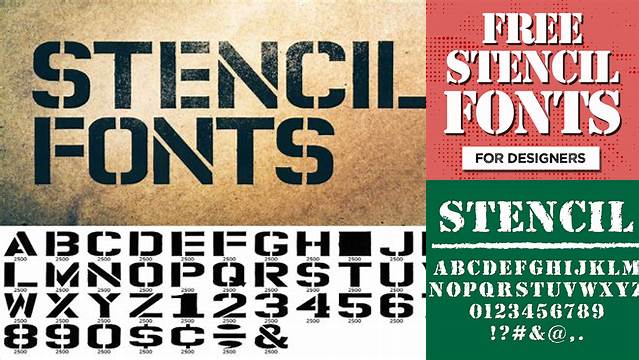
Hey guys! Looking to add a cool, industrial, or military vibe to your designs? Stencil fonts are the way to go! They're super versatile and can be used for everything from logos and posters to website headers and social media graphics. The best part? You can find tons of amazing free stencil fonts to download and use in your projects. Let's dive into the world of stencil fonts and explore where you can snag some awesome freebies.
Stencil Fonts: An Overview
Stencil fonts, characterized by their disconnected letterforms, evoke a sense of ruggedness and practicality. This unique design stems from the traditional method of creating lettering using stencils, where bridges are necessary to hold the inner parts of letters in place. The result is a distinctive, fragmented aesthetic that lends itself well to various design applications. From military-themed designs to industrial branding, stencil fonts offer a versatile way to convey a sense of strength, durability, and history. Free stencil font downloads provide designers with accessible tools to incorporate this aesthetic into their work without incurring licensing fees, making them a valuable resource for both personal and commercial projects.
Always read the font license carefully before using a font in your project. If you're unsure about the terms of the license, it's best to contact the font designer or foundry directly to clarify. Using a font without the proper license can lead to legal trouble, so it's always better to be safe than sorry.
Stencil Fonts for Logo Design
Stencil fonts can be a powerful tool for creating unique and memorable logos. The distinctive, fragmented letterforms of stencil fonts can help your logo stand out from the crowd and convey a sense of strength, durability, or industrial style. When using stencil fonts for logo design, it's essential to choose a font that aligns with your brand's identity and target audience. Consider the overall feel you want to create and select a font that reflects that aesthetic.
For example, a bold, robust stencil font might be ideal for a construction company or a military-themed brand. On the other hand, a more refined and stylized stencil font might be suitable for a fashion brand or a creative agency. Experiment with different fonts and variations to find the perfect fit for your logo. Also, be sure to consider the legibility of the font, especially at small sizes. A stencil font that looks great in a large headline might not be readable in a small logo.
Using Stencil Fonts in Web Design
Stencil fonts can add a unique touch to your web design projects. They can be used for headings, subheadings, and even body text, depending on the overall style of your website. When using stencil fonts on the web, it's essential to consider readability and accessibility. Stencil fonts can sometimes be challenging to read on screens, especially at smaller sizes. Therefore, it's crucial to choose a font that is legible and easy on the eyes.
Also, be sure to consider the loading time of the font. Some stencil fonts can be quite large, which can slow down your website's loading speed. To avoid this, optimize the font files and use a content delivery network (CDN) to serve the fonts. You can also use font subsets to include only the characters that you need, which can significantly reduce the file size.
Stencil Fonts for Print Design
Stencil fonts are a great choice for print design projects, such as posters, flyers, brochures, and packaging. They can add a touch of industrial style or military flair to your designs. When using stencil fonts in print, it's essential to choose a font that is legible and prints well at the desired size. Some stencil fonts may have thin lines or small details that can get lost in print, so it's crucial to test the font before committing to a large print run.
Also, be sure to consider the color and paper stock you're using. Stencil fonts can look particularly striking when printed in bold colors on textured paper. Experiment with different combinations to find the perfect look for your project. Remember to check the font license to ensure that you're allowed to use the font for commercial print projects.
Free Stencil Fonts for Commercial Use
Finding free stencil fonts for commercial use can be a bit challenging, but it's definitely possible. Many font websites offer fonts that are free for both personal and commercial use. However, it's essential to always check the license before using a font in a commercial project. Look for licenses that explicitly state that the font is free for commercial use or that allow you to use the font for any purpose.
Some foundries also offer free sample fonts or promotional releases that can be used commercially. These fonts are often of high quality and can be a great way to add a professional touch to your designs. Keep an eye out for these freebies and take advantage of them when you find them. Remember to always keep a record of the font licenses for your commercial projects in case you ever need to prove that you have the right to use the fonts.
Best Stencil Fonts for Military Designs
For military-themed designs, stencil fonts are an absolute must-have. They perfectly capture the rugged, utilitarian aesthetic of military equipment and signage. When choosing a stencil font for a military design, look for fonts that are bold, strong, and easy to read. Fonts with sharp angles and clean lines tend to work well for this purpose.
Consider the historical context of your design when selecting a font. Different eras of military history have different design styles, so choose a font that is appropriate for the time period you're representing. Also, be sure to consider the color palette. Military designs often use muted colors like olive drab, khaki, and black, so choose a font that complements these colors. Some popular stencil fonts for military designs include those inspired by military stencils and industrial lettering.
Industrial Stencil Fonts: A Closer Look
Industrial stencil fonts are perfect for designs that need to convey a sense of strength, durability, and functionality. These fonts are often used in logos, signage, and packaging for industrial products and services. When choosing an industrial stencil font, look for fonts that are bold, geometric, and easy to read. Fonts with a slightly distressed or weathered look can add to the industrial feel.
Consider the specific industry you're designing for when selecting a font. For example, a font that is suitable for a construction company might not be appropriate for a technology company. Also, be sure to consider the overall tone of your design. Do you want it to look tough and rugged, or more modern and sophisticated? Choose a font that reflects the desired tone. It’s key to check the font licenses to ensure it is free for commercial use.
Creating Your Own Stencil Font
If you're feeling adventurous, you can even try creating your own stencil font. This can be a fun and rewarding way to add a unique touch to your designs. There are several software programs available that make it easy to create custom fonts. Some popular options include FontLab Studio, Glyphs, and FontForge. These programs allow you to draw your own letterforms and create a complete font from scratch.
When designing your stencil font, be sure to consider the principles of typography and design. Pay attention to the spacing between letters, the thickness of the strokes, and the overall balance of the font. Also, be sure to test your font in different sizes and contexts to ensure that it is legible and aesthetically pleasing. Creating your own font can be a time-consuming process, but the results can be well worth the effort.
Editing Existing Stencil Fonts
Sometimes, you might find a stencil font that is almost perfect, but needs a few tweaks to fit your specific needs. Fortunately, many font editing programs allow you to modify existing fonts. This can be a great way to customize a font and make it your own. Some popular font editing programs include FontLab Studio, Glyphs, and FontForge.
When editing a stencil font, be careful not to damage the font's structure or legibility. Make small, incremental changes and test the font after each change to ensure that it still looks good. You can adjust the spacing between letters, change the thickness of the strokes, or even add new characters to the font. Just remember to respect the original font designer's work and to comply with the font's license.
Pairing Stencil Fonts with Other Typefaces
Stencil fonts can be a bit overwhelming on their own, so it's often a good idea to pair them with other typefaces. This can help to balance the overall design and make it more visually appealing. When pairing stencil fonts, look for typefaces that complement the stencil font's style and tone. For example, a bold stencil font might pair well with a clean, sans-serif typeface. Or, a more decorative stencil font might pair well with a classic serif typeface.
Experiment with different combinations to find what works best for your design. Consider the overall hierarchy of your design and use different typefaces to emphasize different elements. Also, be sure to pay attention to the spacing between the typefaces. The goal is to create a harmonious and visually balanced design.
The History of Stencil Fonts
The history of stencil fonts is closely tied to the history of printing and lettering. Stencils have been used for centuries to create lettering and designs. The earliest stencils were made from materials like paper, parchment, and metal. These stencils were used to apply paint, ink, or other materials to surfaces, creating lettering and designs. The use of stencils became particularly widespread in the military, where they were used to mark equipment, vehicles, and signage.
Over time, stencil fonts evolved and became more refined. The development of new printing technologies, such as lithography and screen printing, allowed for the creation of more intricate and detailed stencil fonts. Today, stencil fonts are widely used in graphic design, web design, and other creative fields. They continue to be a popular choice for designs that need to convey a sense of strength, durability, or industrial style.
Stencil Fonts in Graphic Design Trends
Stencil fonts have been a recurring trend in graphic design for many years. They often appear in designs that are inspired by military, industrial, or urban aesthetics. In recent years, stencil fonts have been used in a variety of design projects, including logos, posters, websites, and packaging. One of the reasons for the popularity of stencil fonts is their versatility. They can be used to create a wide range of looks, from rugged and edgy to sophisticated and modern.
Another reason for the popularity of stencil fonts is their ability to convey a sense of authenticity and history. Stencil fonts evoke the imagery of hand-painted signs and military equipment, which can add a touch of nostalgia and character to a design. As graphic design trends continue to evolve, stencil fonts are likely to remain a popular choice for designers looking to add a unique and impactful element to their work.
Using Stencil Fonts for Social Media Graphics
Stencil fonts can be a great way to make your social media graphics stand out from the crowd. They can add a touch of edginess and personality to your posts, making them more visually appealing and engaging. When using stencil fonts for social media graphics, it's important to consider the platform you're designing for. Different platforms have different design requirements and limitations, so it's essential to tailor your designs accordingly.
For example, Instagram tends to favor visually striking and colorful designs, while LinkedIn tends to prefer more professional and conservative designs. Also, be sure to consider the overall tone of your brand. Do you want your social media graphics to be fun and playful, or more serious and informative? Choose a stencil font that reflects the desired tone. Don't forget to check the font licenses to ensure they are free for social media commercial use.
Stencil Fonts and Brand Identity
Stencil fonts can play a significant role in shaping a brand's identity. The choice of font can convey a brand's personality, values, and target audience. When using stencil fonts for branding, it's essential to choose a font that aligns with the brand's overall image and message. For example, a bold and robust stencil font might be suitable for a brand that wants to project strength, reliability, and durability.
On the other hand, a more refined and stylized stencil font might be appropriate for a brand that wants to convey creativity, innovation, and sophistication. Consider the brand's history, values, and target audience when selecting a stencil font. Also, be sure to test the font in different contexts to ensure that it works well across all of the brand's marketing materials.
Stencil Fonts in Film and Television
Stencil fonts have been used extensively in film and television to create a variety of effects. They can be used for titles, credits, and other on-screen text. Stencil fonts are particularly popular in films and television shows that are set in military, industrial, or urban environments. They help to create a sense of realism and authenticity.
Stencil fonts can also be used to convey a specific mood or tone. For example, a bold and distressed stencil font might be used to create a sense of danger or urgency. On the other hand, a more clean and modern stencil font might be used to create a sense of sophistication and style. Film and television designers often experiment with different stencil fonts to find the perfect fit for their projects.
Free Stencil Fonts for Cricut and Silhouette
If you're a crafter who uses a Cricut or Silhouette cutting machine, you know how important it is to have a good selection of fonts. Stencil fonts are a great choice for crafting projects because they are easy to cut and weed. When choosing a stencil font for Cricut or Silhouette, look for fonts that have clean lines and simple shapes. Avoid fonts with intricate details or thin lines, as these can be difficult to cut.
Also, be sure to consider the size of your project. Some stencil fonts may look great at large sizes, but may be difficult to cut at smaller sizes. Test the font before cutting a large project to ensure that it will work well. Many websites offer free stencil fonts specifically designed for Cricut and Silhouette machines. These fonts are often optimized for cutting and weeding, making them a great choice for crafting projects.
Optimizing Stencil Fonts for Readability
While stencil fonts can be visually striking, they can sometimes be challenging to read. The gaps in the letterforms can make it difficult for the eye to follow the text, especially at smaller sizes. To optimize stencil fonts for readability, it's important to choose a font that has well-defined letterforms and adequate spacing between the letters. Avoid fonts with overly complex or distorted letterforms.
Also, be sure to consider the color contrast between the text and the background. High contrast is essential for readability, especially when using stencil fonts. Experiment with different font sizes and line heights to find the optimal settings for your design. You can also try adding a subtle shadow or outline to the text to improve its readability.
Advanced Techniques with Stencil Fonts
Once you've mastered the basics of using stencil fonts, you can start experimenting with more advanced techniques. One technique is to combine multiple stencil fonts in a single design. This can create a visually interesting and dynamic effect. Another technique is to use stencil fonts in combination with other design elements, such as illustrations, photographs, and textures.
This can add depth and complexity to your designs. You can also try using stencil fonts in unexpected ways, such as creating abstract patterns or textures. The key is to be creative and experiment with different ideas. There are no hard and fast rules when it comes to design, so don't be afraid to push the boundaries and try something new.
The Future of Stencil Fonts
As design trends continue to evolve, it's likely that stencil fonts will continue to play a role in graphic design. The versatility and unique aesthetic of stencil fonts make them a valuable tool for designers. In the future, we may see new and innovative uses for stencil fonts, as designers continue to experiment with different techniques and styles.
Technological advancements may also lead to the development of new types of stencil fonts, such as fonts that are optimized for use on digital screens or fonts that can be easily customized and modified. Whatever the future holds, it's clear that stencil fonts will remain a relevant and important part of the design landscape. Guys, you can see many stencil fonts are used in design and the future is bright!
Maintaining Consistency with Stencil Fonts
When using stencil fonts across multiple projects or platforms, maintaining consistency is crucial for establishing a strong brand identity and ensuring a cohesive visual experience. To maintain consistency, create a style guide that outlines the specific stencil fonts you'll be using, along with guidelines for their size, color, spacing, and usage in different contexts. This style guide will serve as a reference point for all designers and team members involved in creating visual materials.
Additionally, use font management software to ensure that everyone has access to the correct font files and versions. Regularly review and update your style guide to reflect any changes in your brand's identity or design direction. By implementing these strategies, you can ensure that your use of stencil fonts remains consistent and effective across all of your projects and platforms.
Showcasing Your Stencil Font Creations
After spending time and effort creating stunning designs with stencil fonts, it's essential to showcase your work to the world and gain recognition for your talent. One way to showcase your creations is to build an online portfolio or website where you can display your best projects. Include high-quality images or mockups that highlight the unique characteristics of your stencil font designs. Write detailed descriptions of each project, explaining the design process, the creative challenges you faced, and the solutions you implemented.
Additionally, share your work on social media platforms like Instagram, Behance, and Dribbble to reach a wider audience and connect with other designers. Participate in online design communities and forums to get feedback on your work and learn from others. By actively promoting your stencil font creations, you can attract new clients, collaborate with other designers, and establish yourself as a skilled and creative professional.
Resources for Learning More About Stencil Fonts
To deepen your understanding of stencil fonts and enhance your design skills, there are numerous resources available to explore. Online typography courses and tutorials can provide you with in-depth knowledge of font design principles, techniques, and best practices. Websites like Skillshare, Udemy, and Coursera offer a wide range of courses taught by experienced designers and typographers.
Additionally, books on typography, graphic design, and branding can offer valuable insights into the history, theory, and application of stencil fonts in different contexts. Design blogs and magazines often feature articles, interviews, and case studies that showcase innovative uses of stencil fonts in contemporary design projects. By taking advantage of these resources, you can expand your knowledge of stencil fonts and elevate your design skills to the next level.